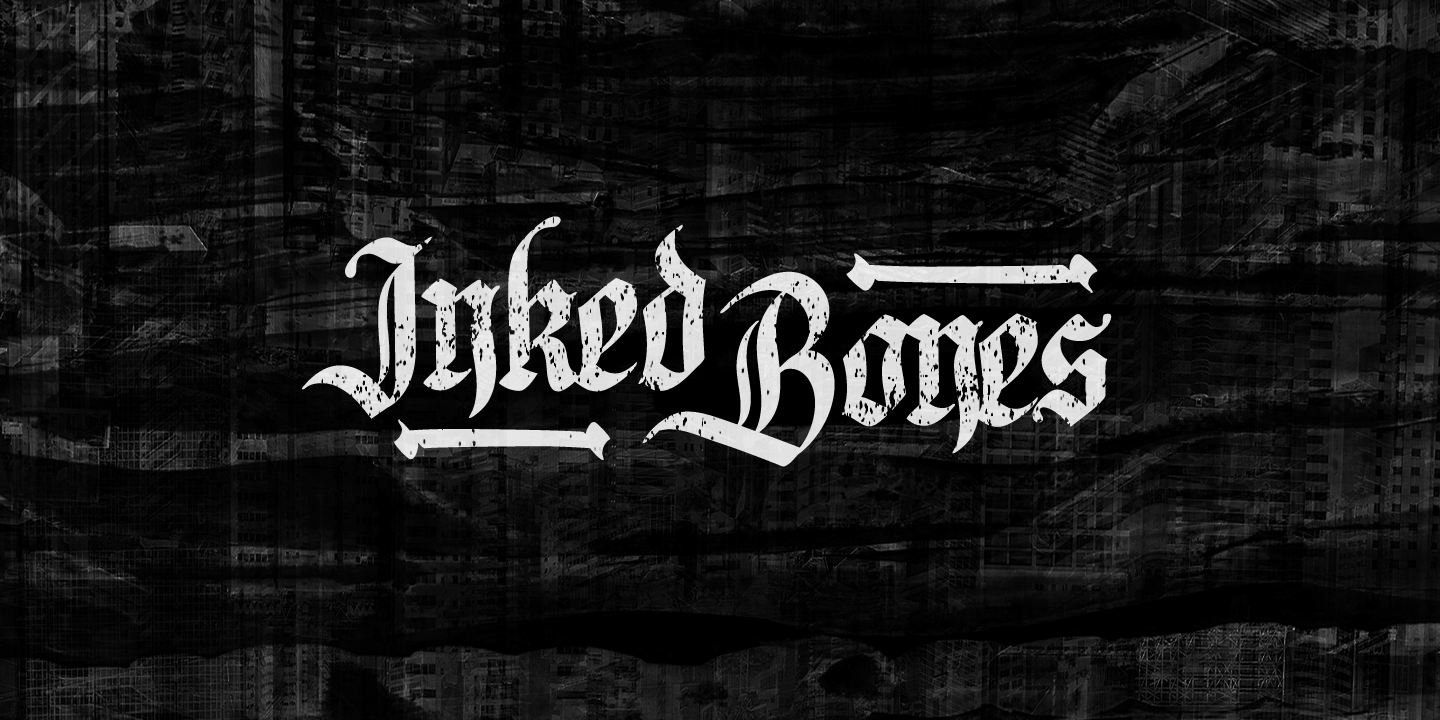
Unleash your creative edge with Inked Bones Font Free Download, a bold and distinctive typeface that brings raw artistic energy to any design project. This striking font combines gothic elements with modern typography, creating an unforgettable visual impact that commands attention and leaves lasting impressions.
Inked Bones Font features dramatic letterforms with unique character details that make it perfect for alternative music posters, horror movie titles, tattoo shop branding, underground art exhibitions, and edgy fashion campaigns. The font's rebellious spirit and artistic flair resonate with audiences seeking authentic, non-conformist design solutions.
This powerful typeface excels in headline applications where maximum visual impact is essential. Whether you're designing album covers, event promotions, streetwear brands, or creative agency portfolios, Inked Bones Font delivers the attitude and personality your projects demand. The carefully crafted details ensure each letter maintains clarity while preserving its distinctive artistic character.
Creative professionals choose the Inked Bones Font Free Download for projects requiring bold statements and memorable typography. The font works exceptionally well for alternative brands, artistic ventures, entertainment industry materials, and any design that needs to break conventional boundaries while maintaining professional quality.
The comprehensive Inked Bones Font package includes various weights and alternates, giving designers complete flexibility for creating cohesive yet dynamic visual systems. Each character demonstrates exceptional craftsmanship, ensuring consistent quality across all applications from large-scale prints to digital displays.
Ideal for graphic designers, brand creators, and artistic professionals, this font bridges the gap between underground aesthetics and commercial viability. Inked Bones Font supports extensive character sets, making it versatile for diverse creative projects and international applications.